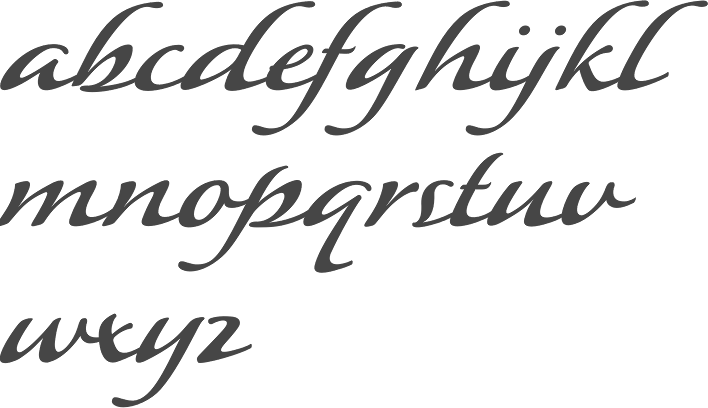
Michael Clark (b. 1952) set up Typerror in 2011. His calligraphy is showcased at Michael Clark Design. Richmond, VA-based Clark does book covers, CD covers and greeting cards. His typefaces: - At Typerror: Lucilee (2011, connected script).
- At Font Bureau: Pouty (2001, calligraphic).
- At P22, where he did and does most of his work: P22 Sting (2006, a blackletter with roman capitals--strange), Peanut (2006, a bouncy rough-edged display face that won an award for display type at TDC2 2007), P22 Peanut Sans, P22 Sweepy (2005, connected script which won an award at TDC2 2006), P22 Pooper Black (2003, connected script), P22 Frenzy-Marks (2003), P22 Frenzy-Regular (2003), P22 Frenzy-Sans (2003), P22 Shibumi (2003, brush face), Monumental Titling (2005), P22 Sneaky (2008, connected script), P22 Brass Script Pro (2009, with Richard Kegler; based on an incomplete script fond in a booklet from Dornemann&Co. of Magdeburg Germany, ca. 1910 entitled Messingschriften für Handvergoldung), P22 Lucilee (2011).
- At Stereo Typehaus: the condensed font Paris.
- At Letraset: Katytude.
- Proprietary: Colonial Williamsburg Script (calligraphic, connected), Icons Sisters of St. Clare (crosses and religious symbols), Michael Podesta Design.